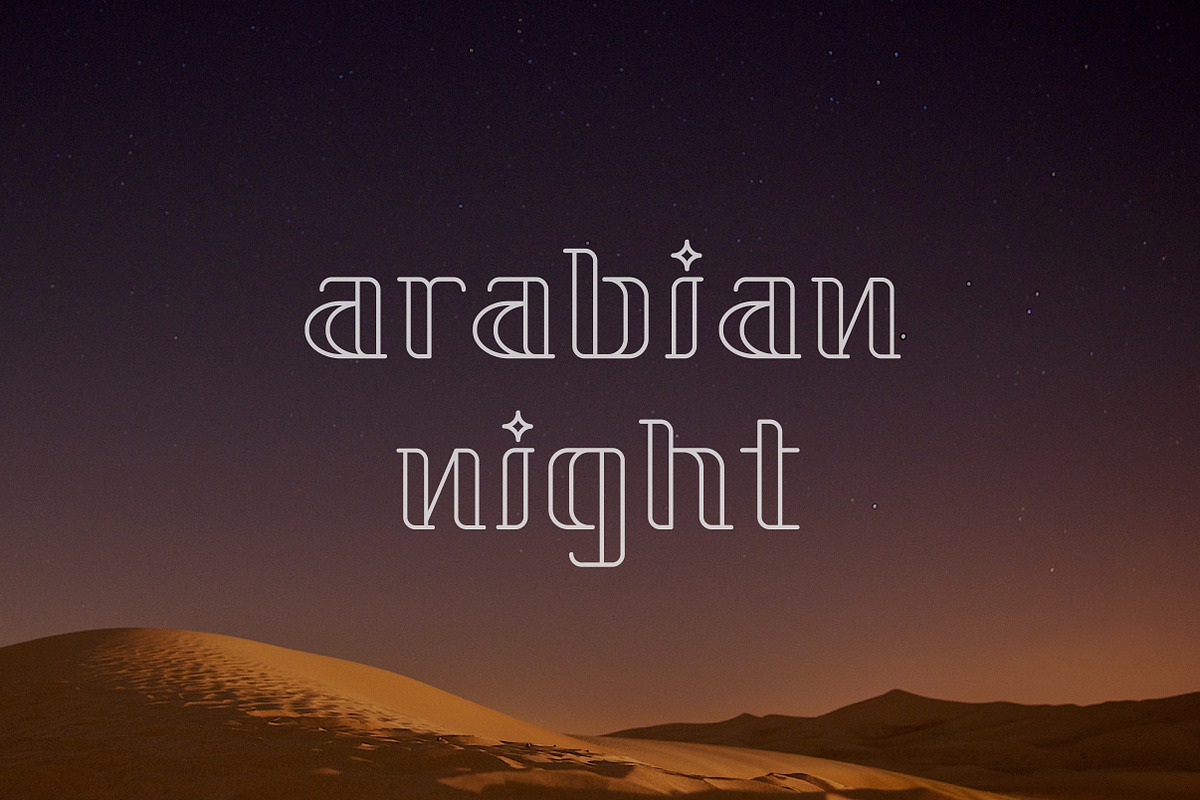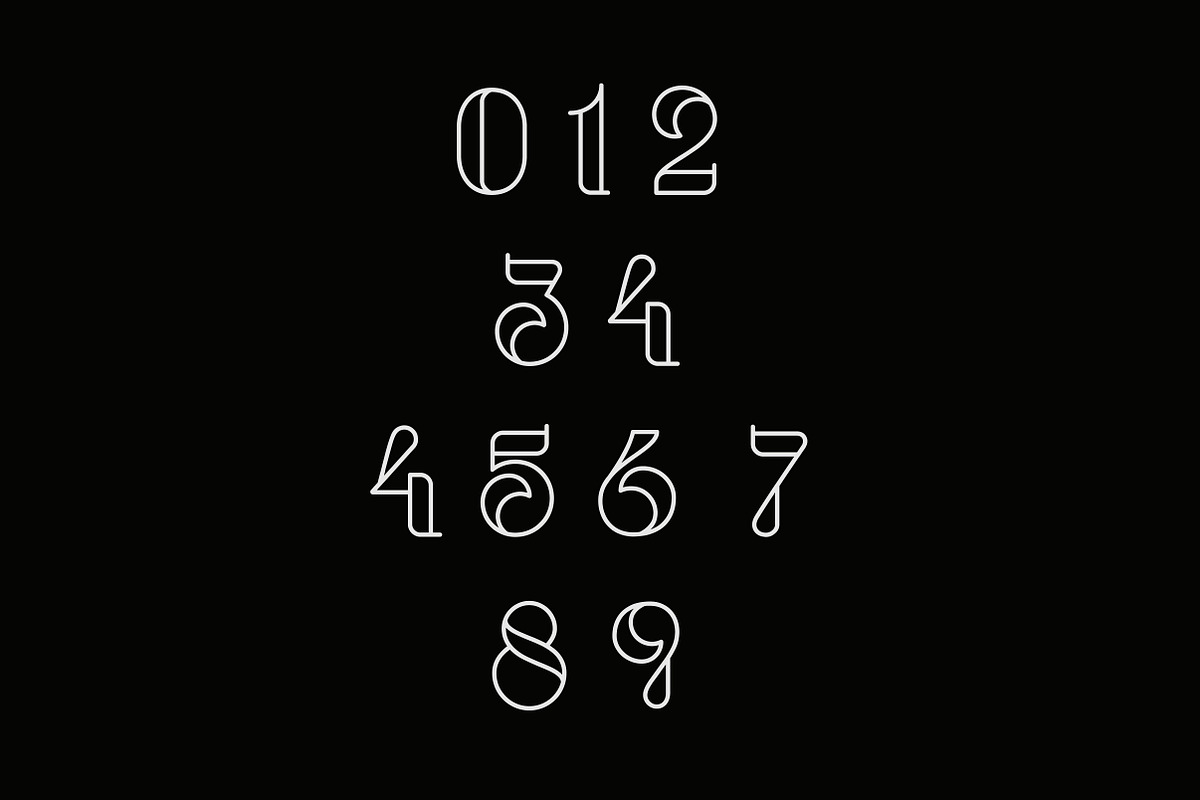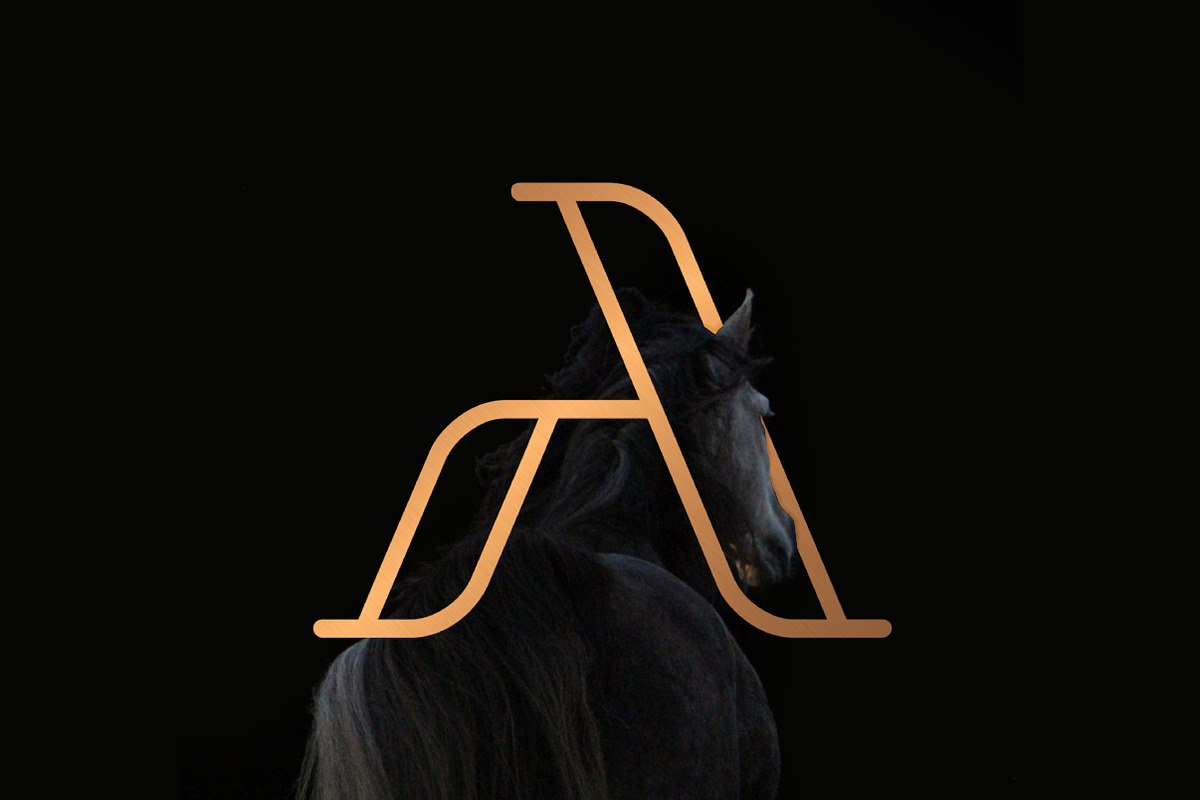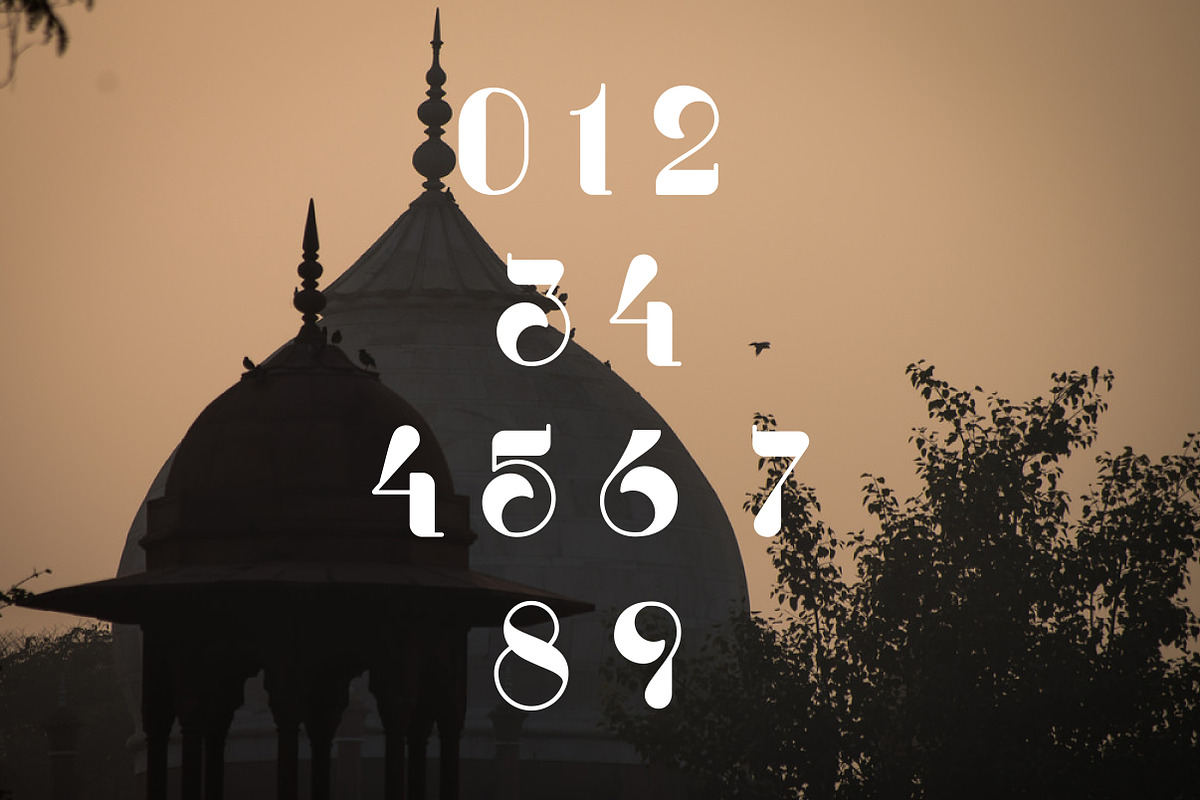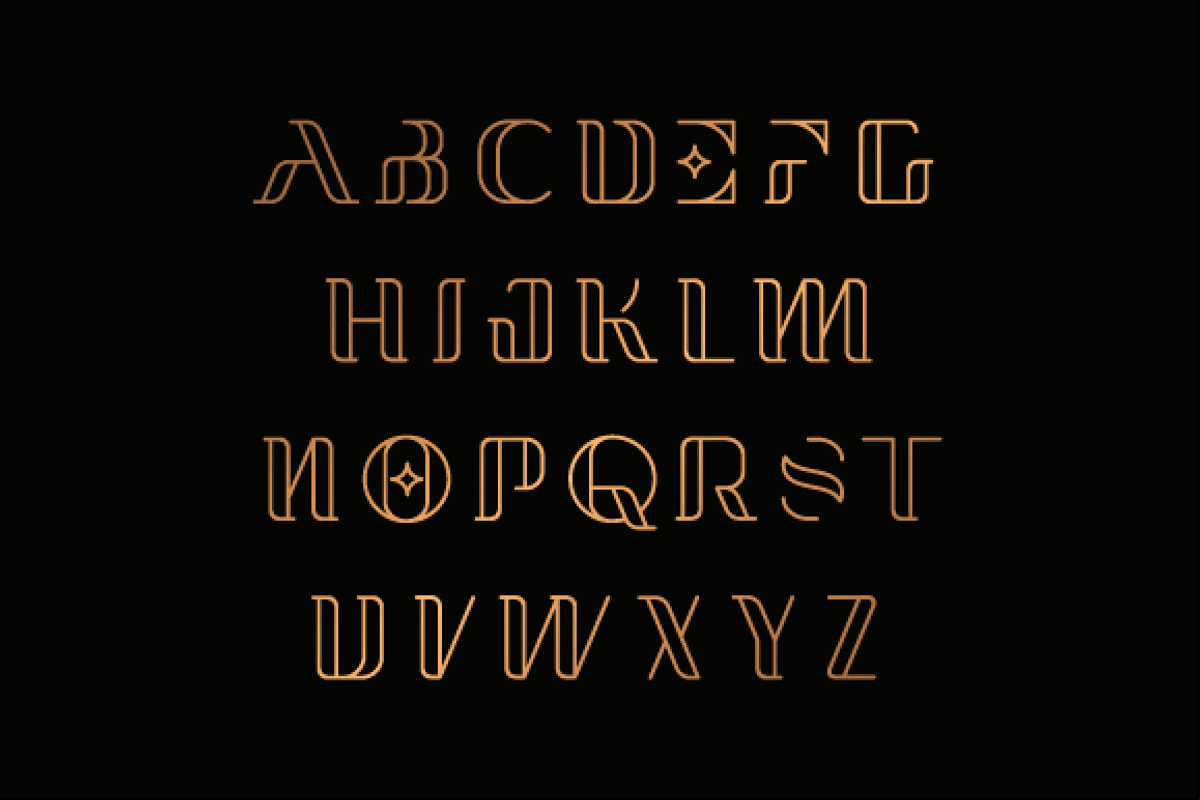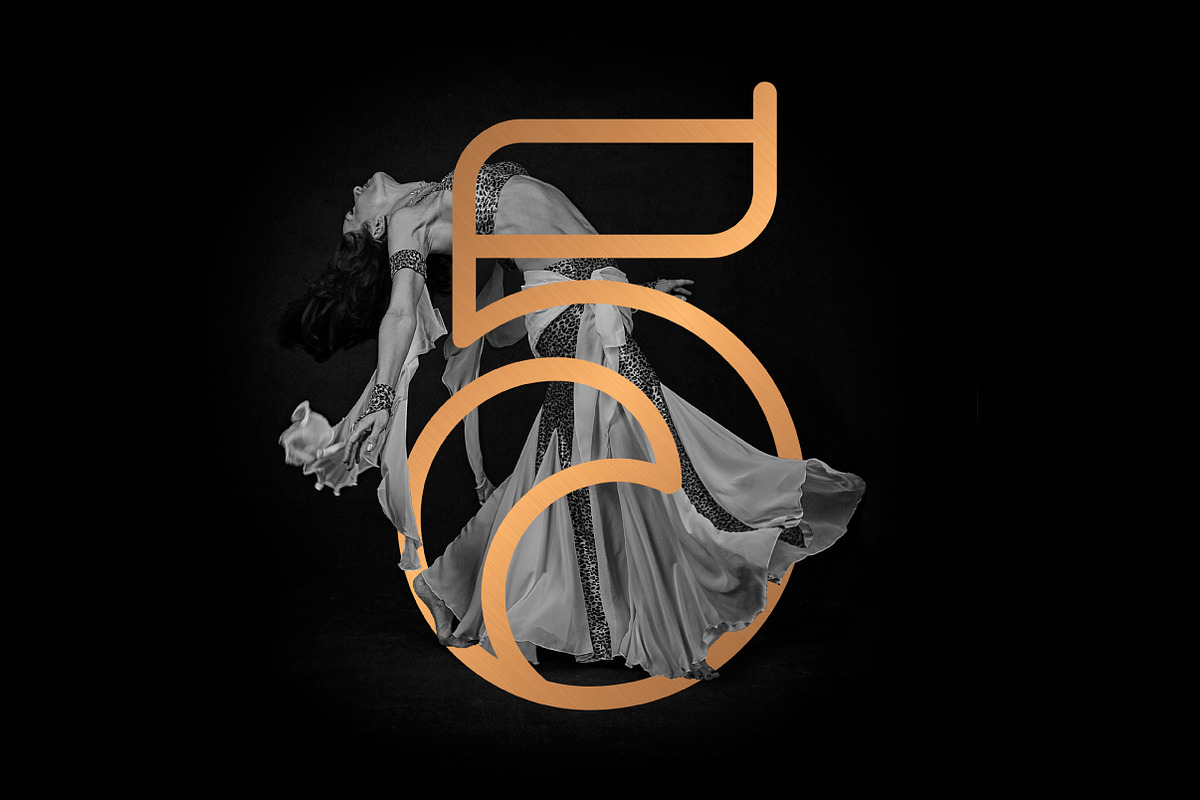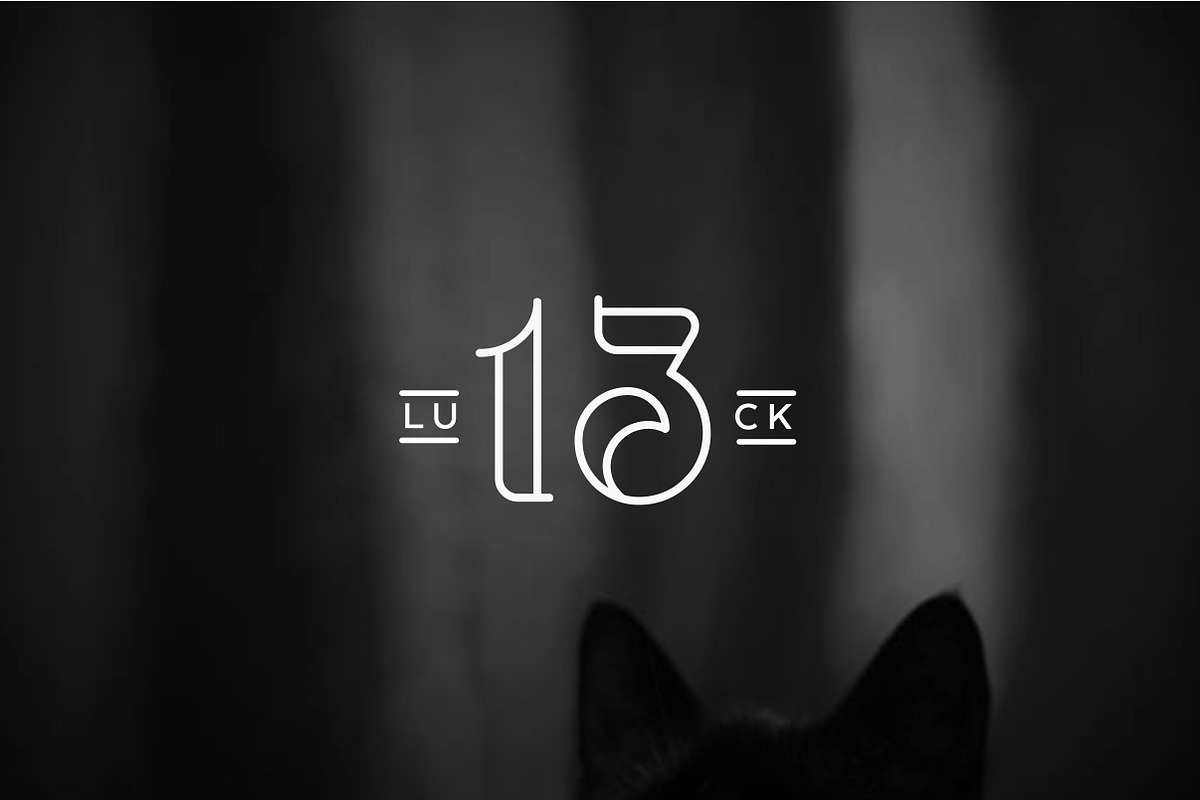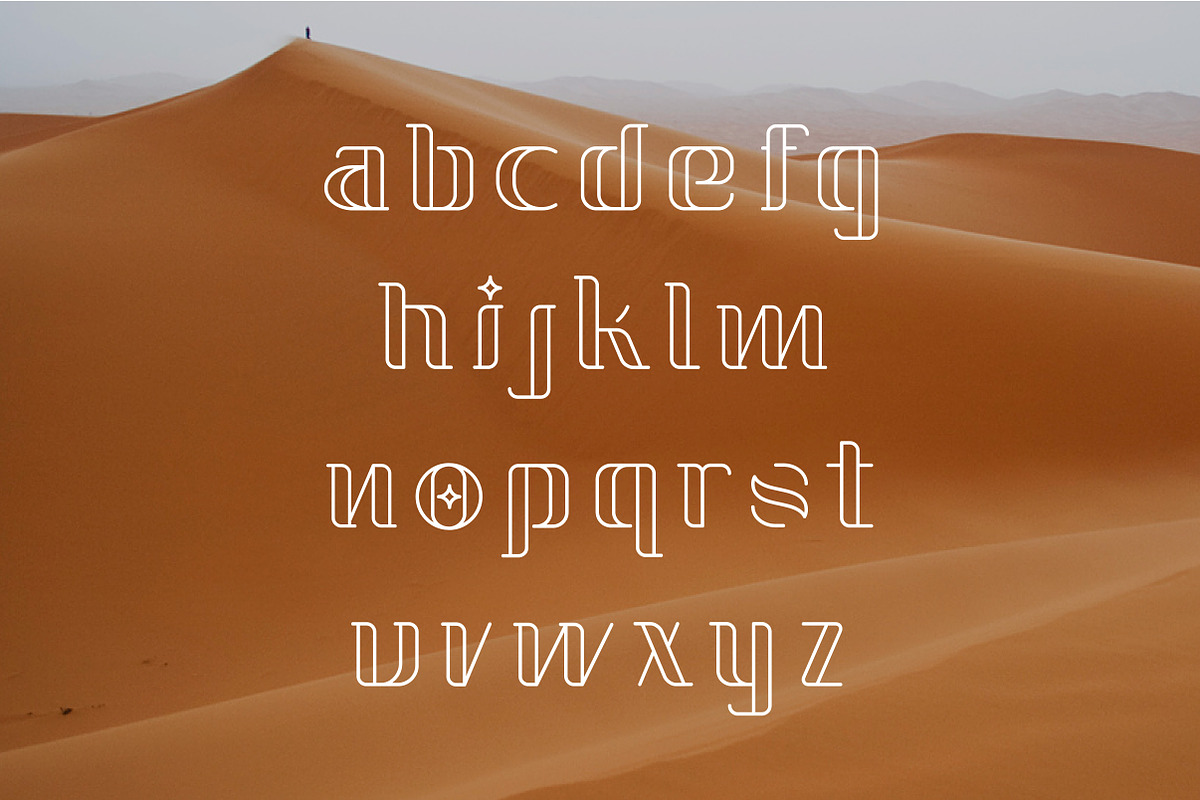
Quira font
Arabian inspired font
Why Quira font is worth a look
Quira font by Pedro Azedo fits naturally into Branding, posters, packaging, typography.